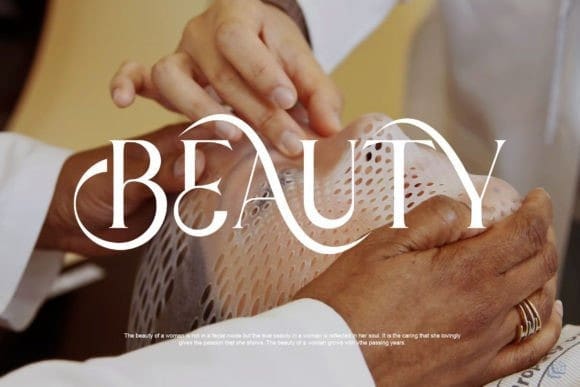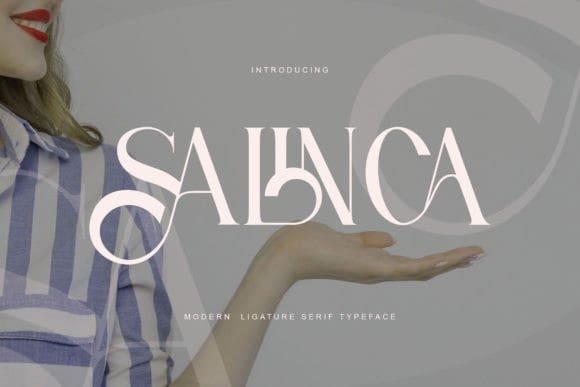
SALINCA FONT
Salinca Font is an elegant and classy serif typeface – This font is both modern and nostalgic and works great for logos, magazines, and social media. Already matched up and ready to be used together for your next design! For those of you who need a touch of elegance, stylish, classy, chic, and modernity for your designs, this font was created for you!